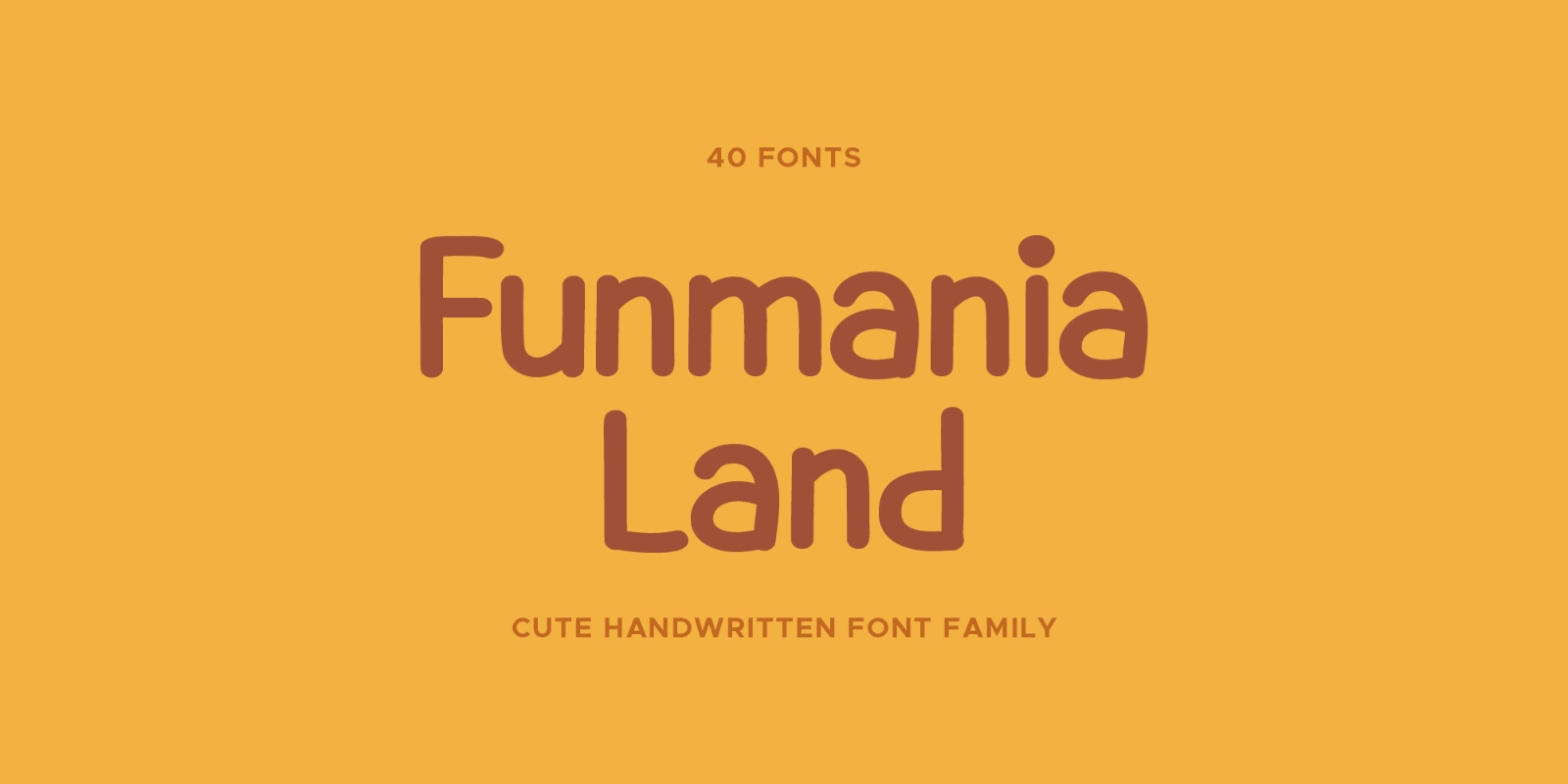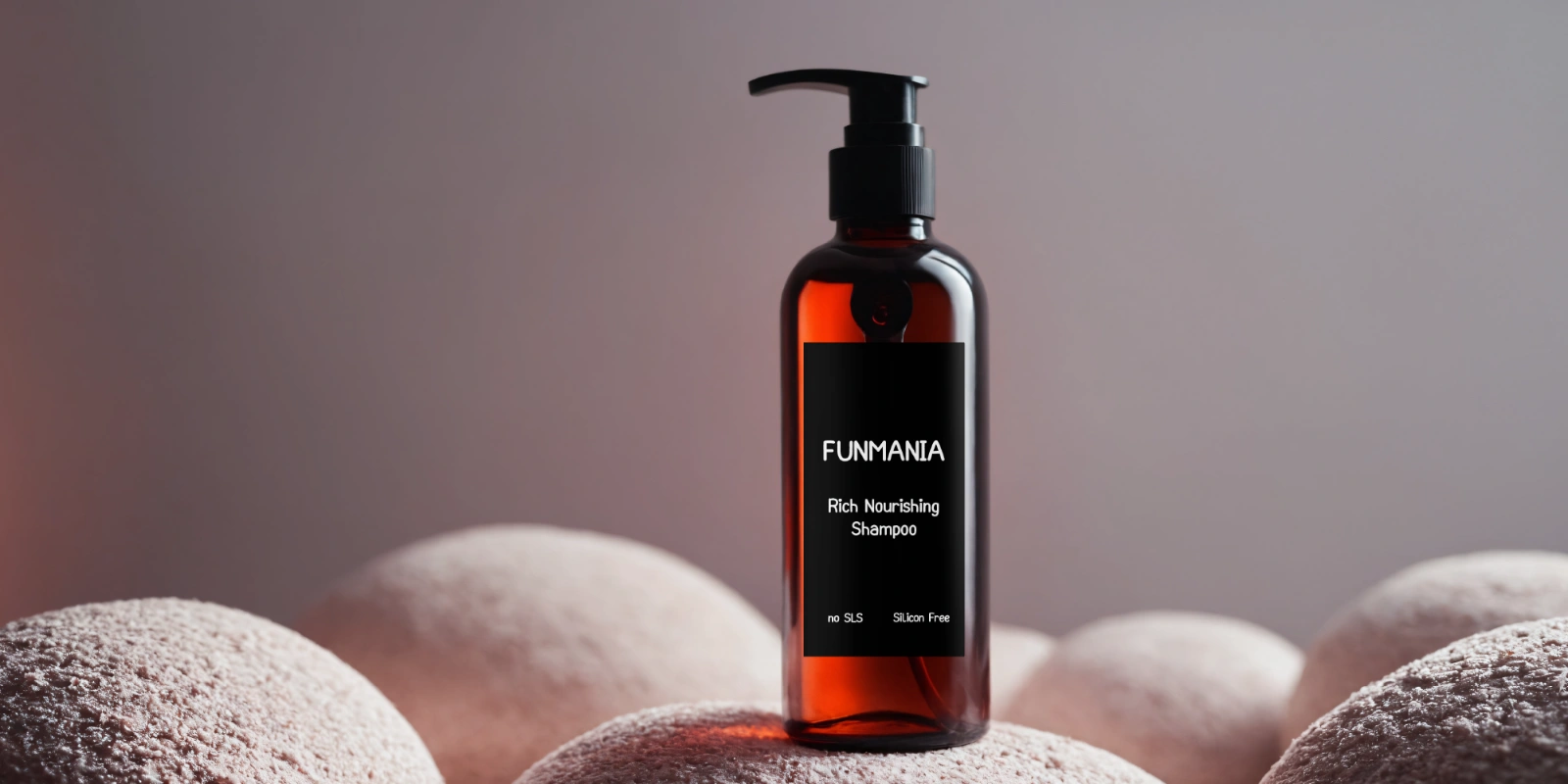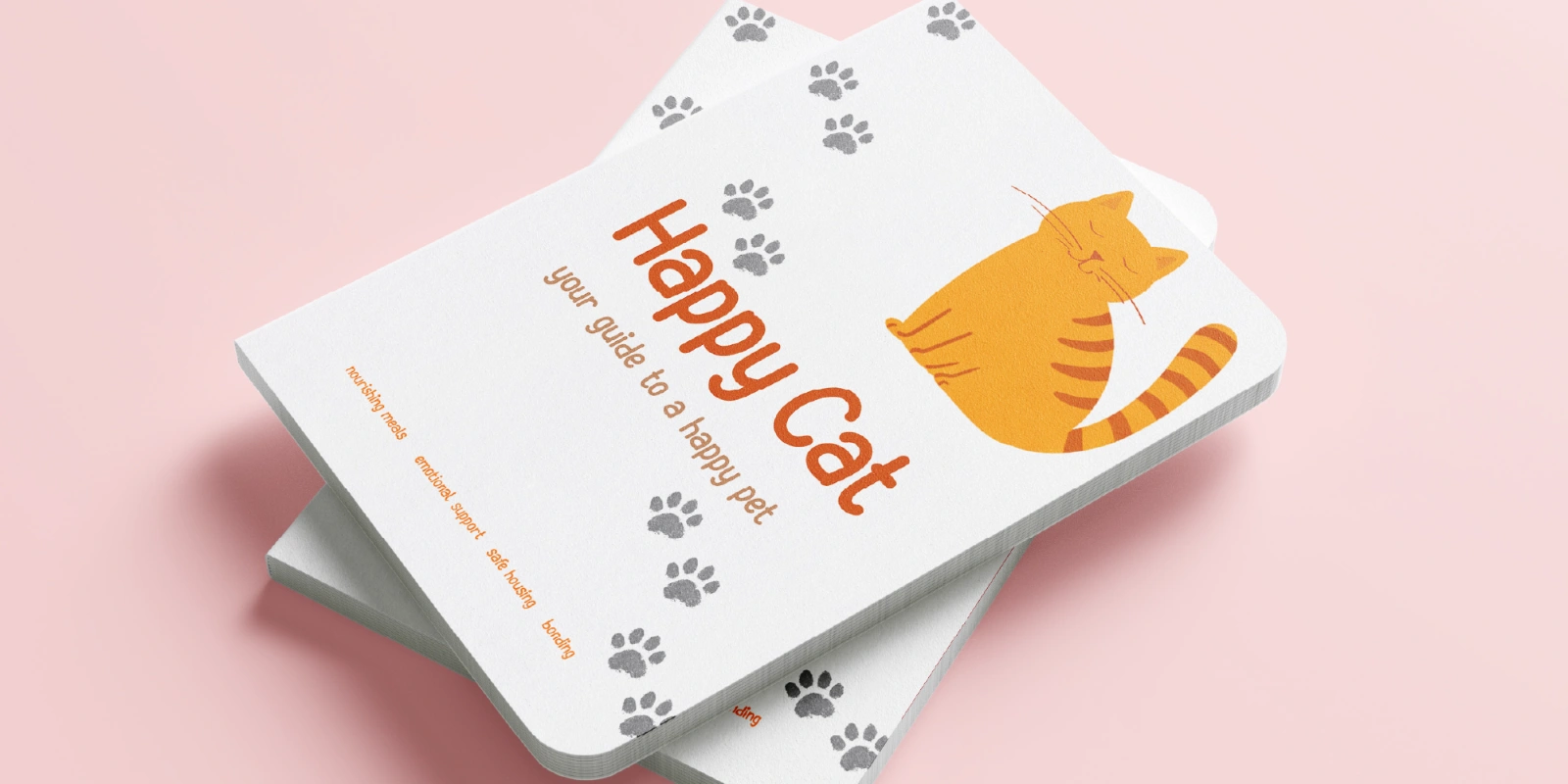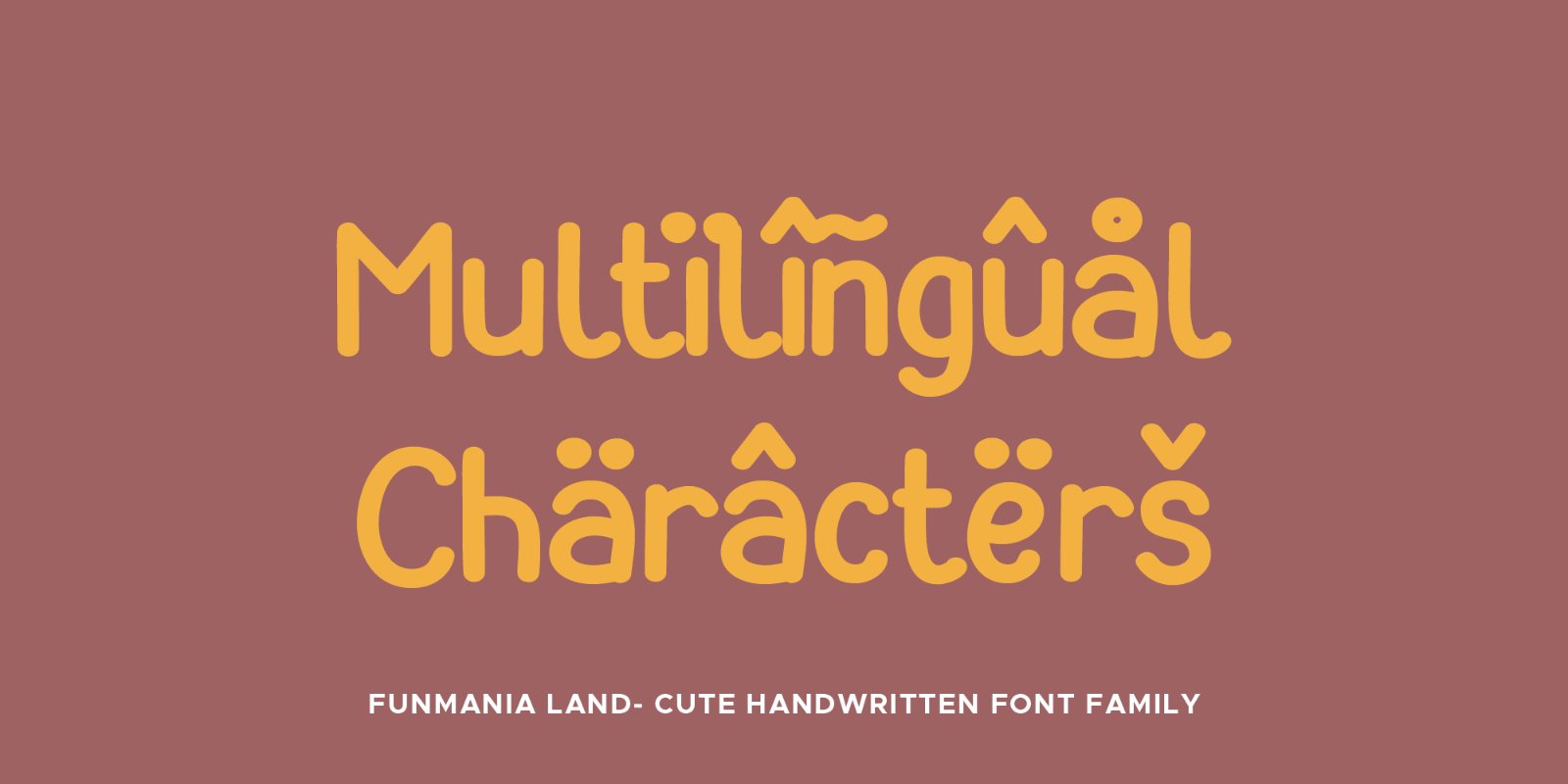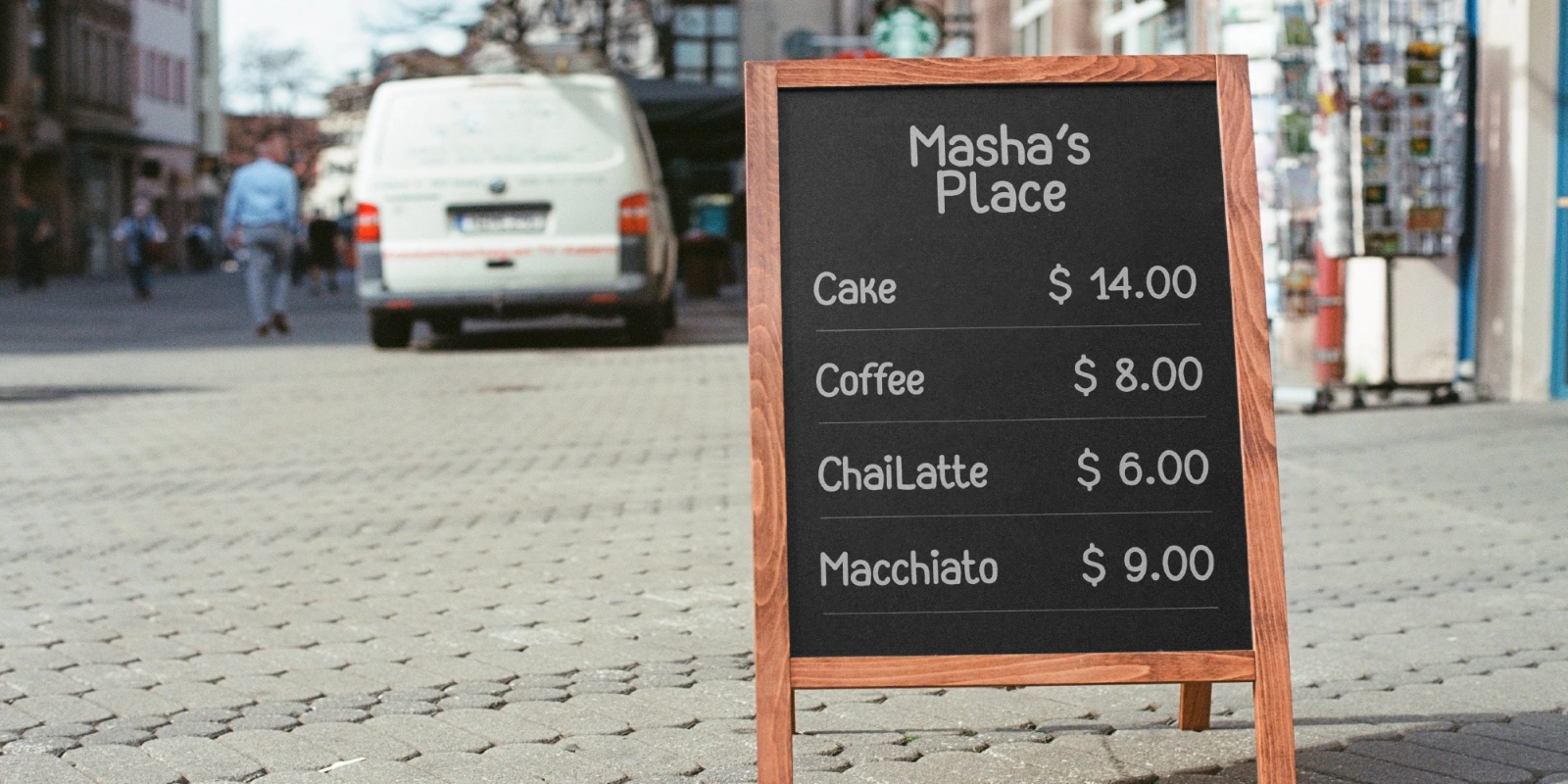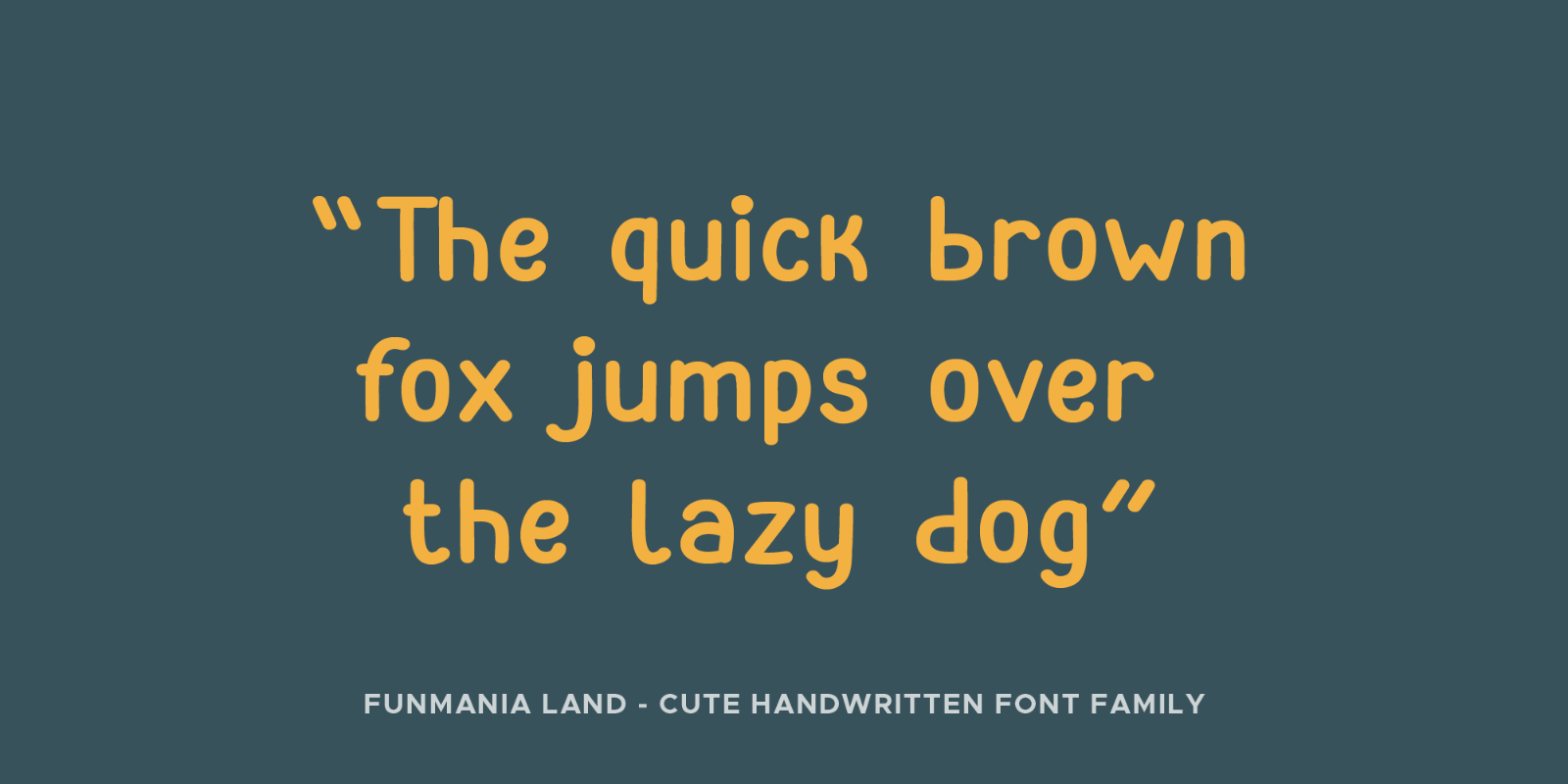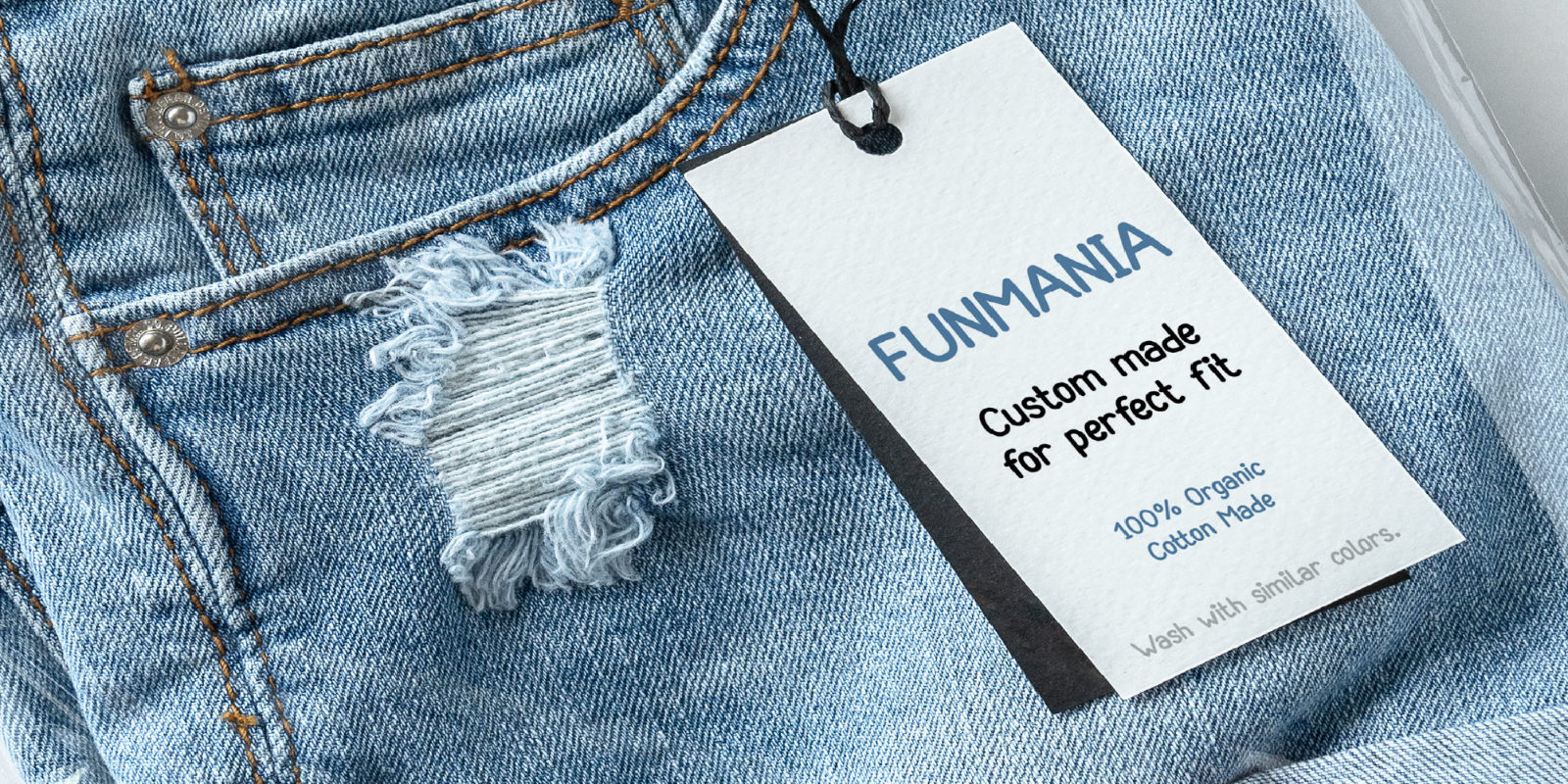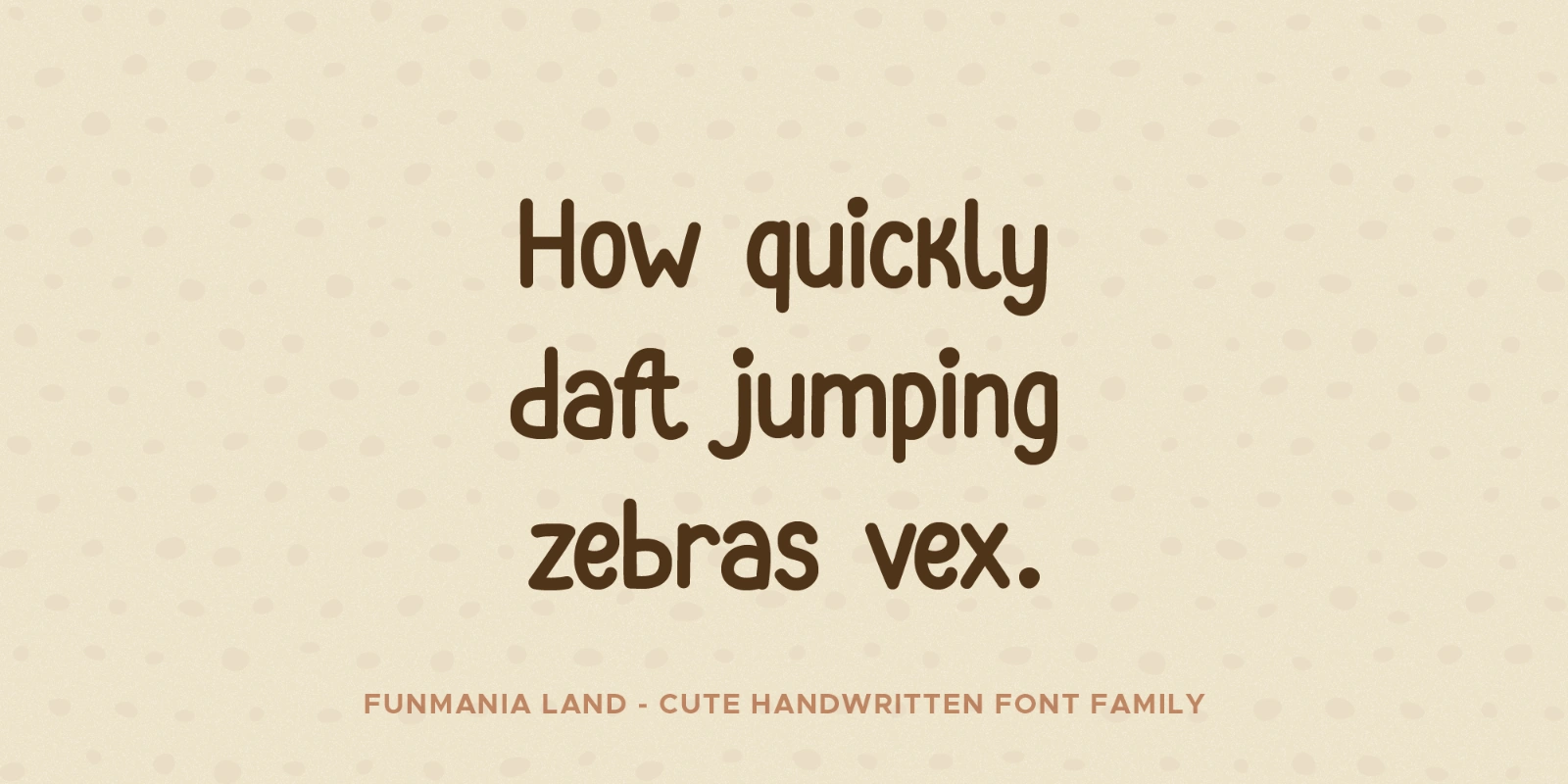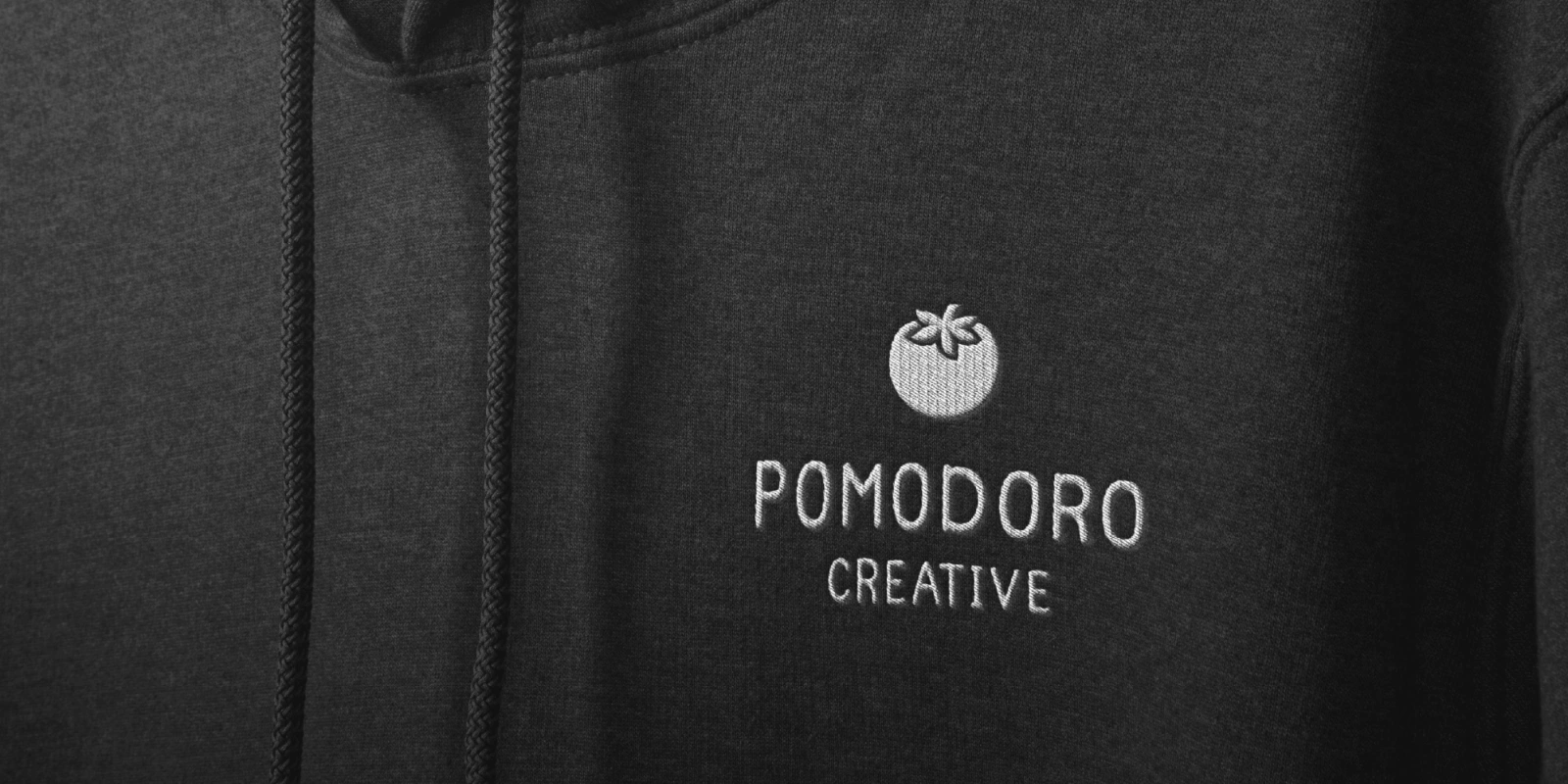
Funmania Land is a versatile handwritten typeface that balances charm and clarity. Non-cursive, cute, and highly readable, it supports 86 languages and comes with 40 expressive styles—from clean and regular to rough, worn, inked, and brushed—making it ideal for branding, packaging, editorial, and digital use.